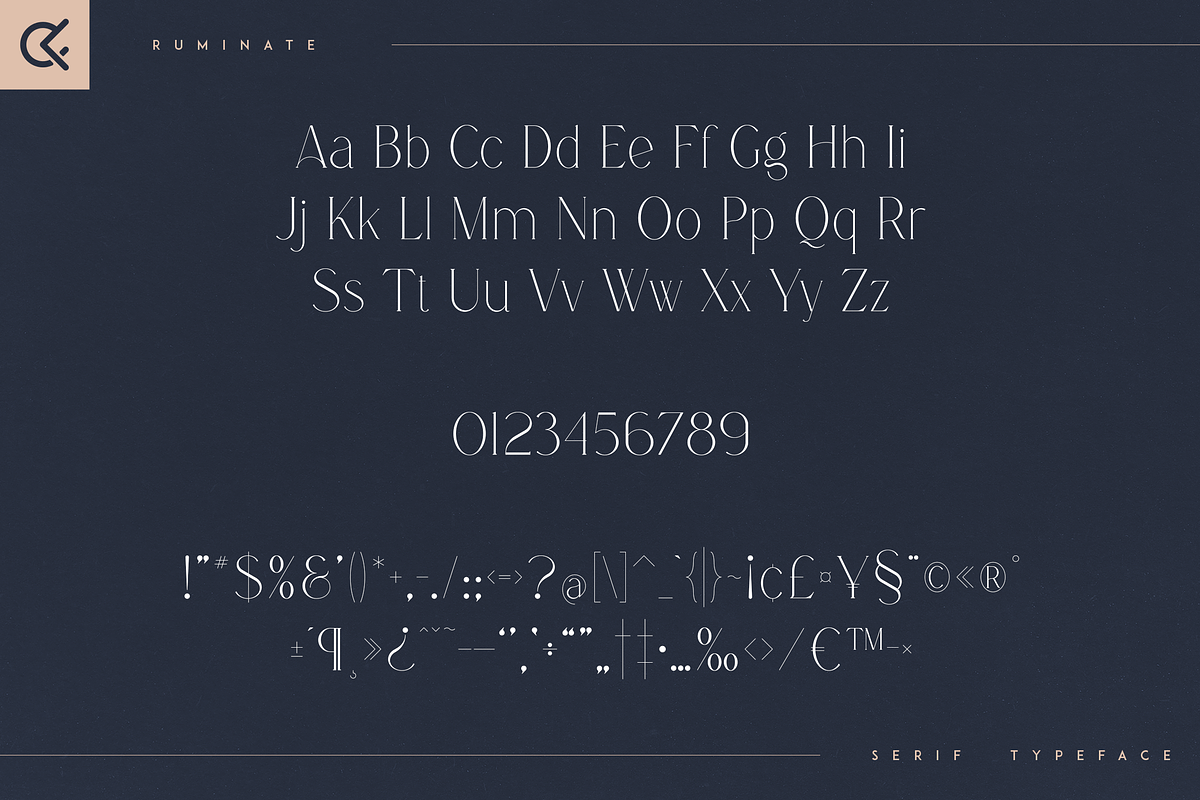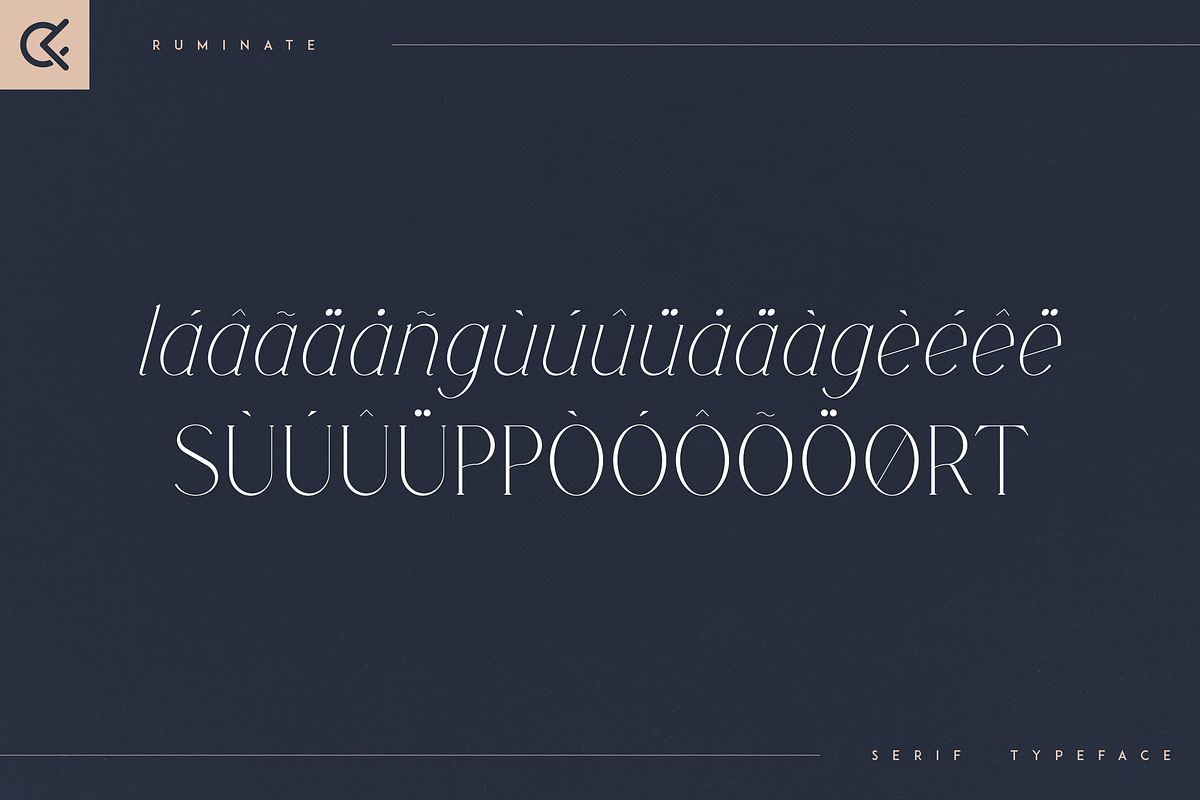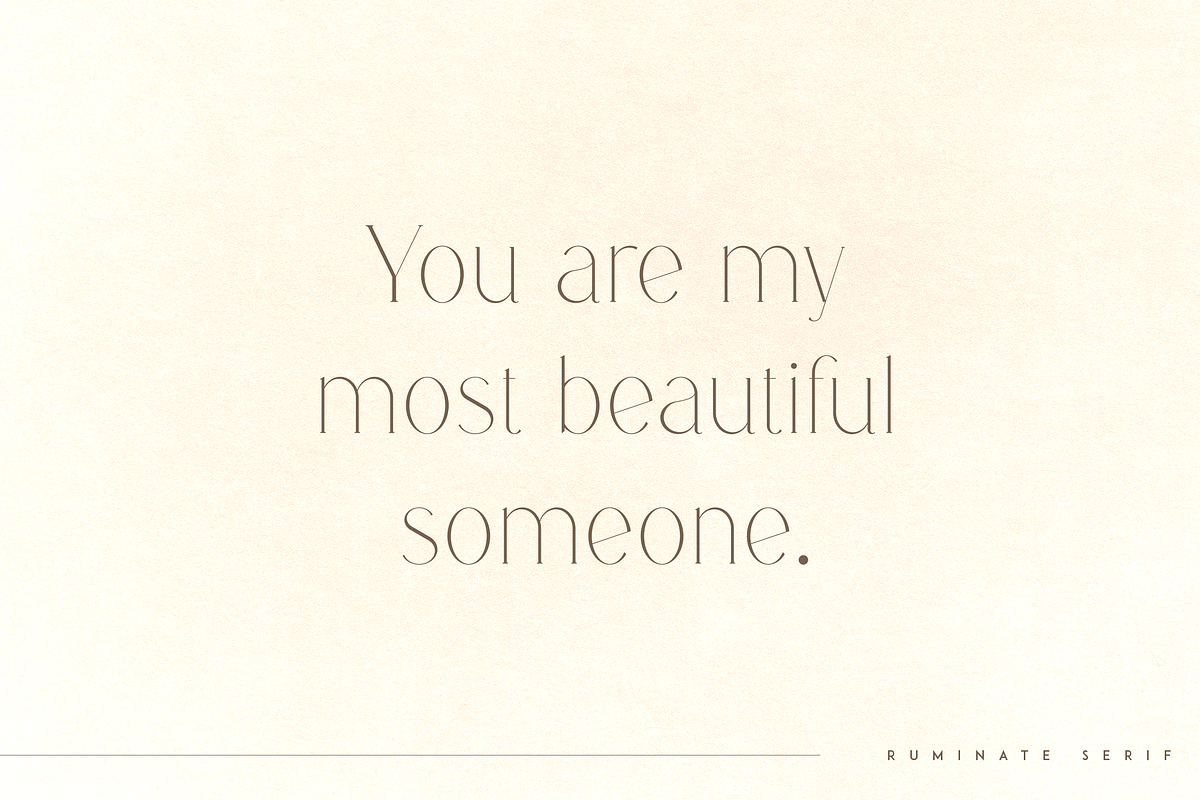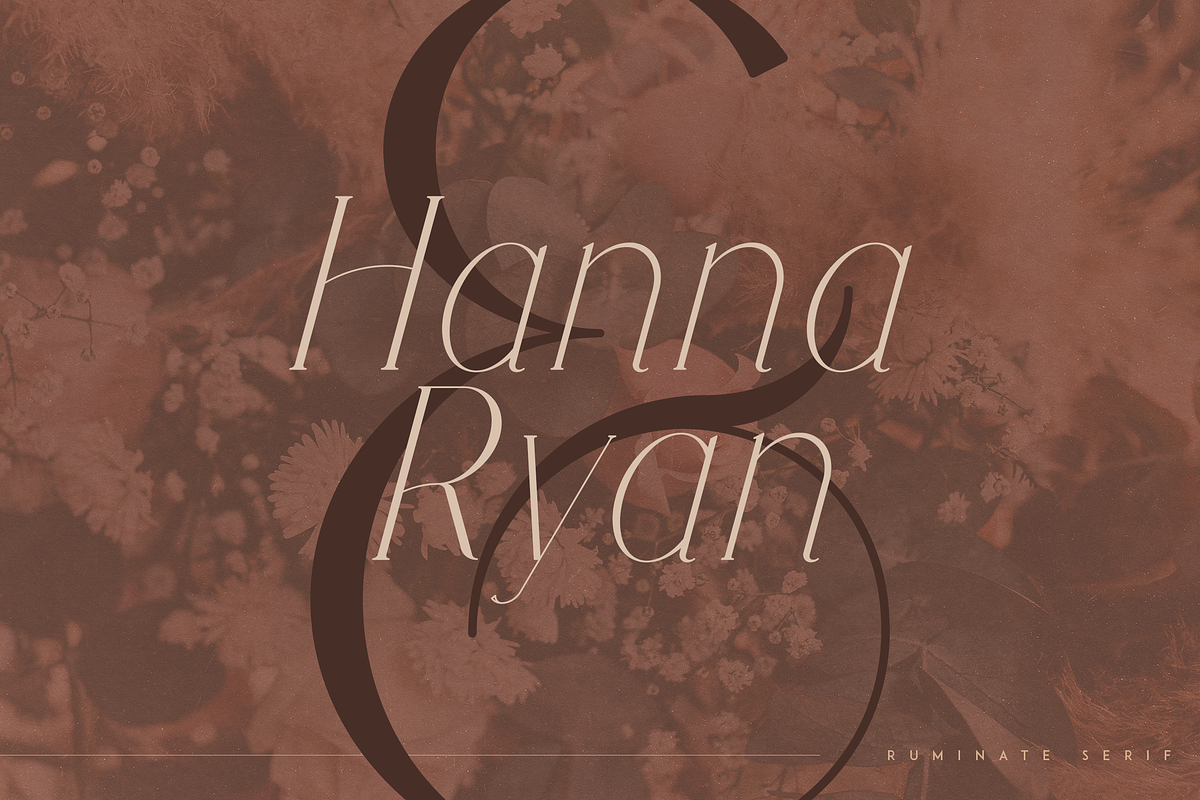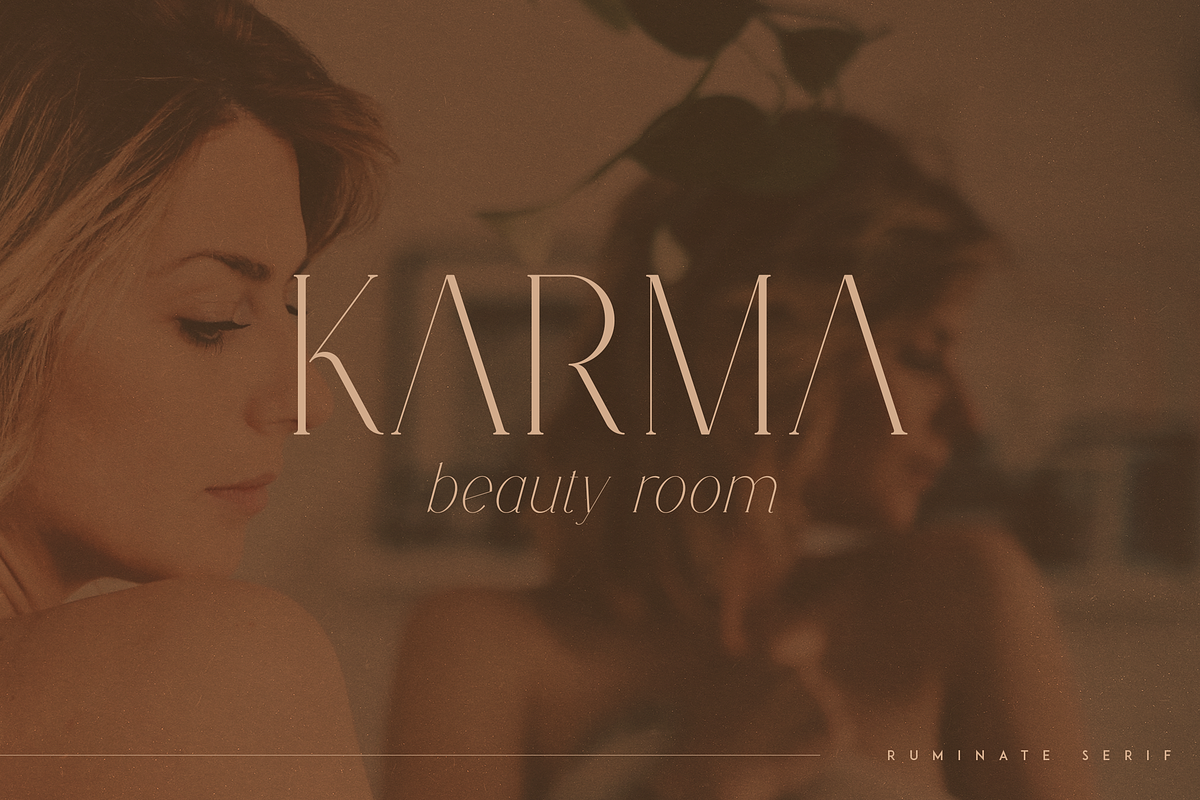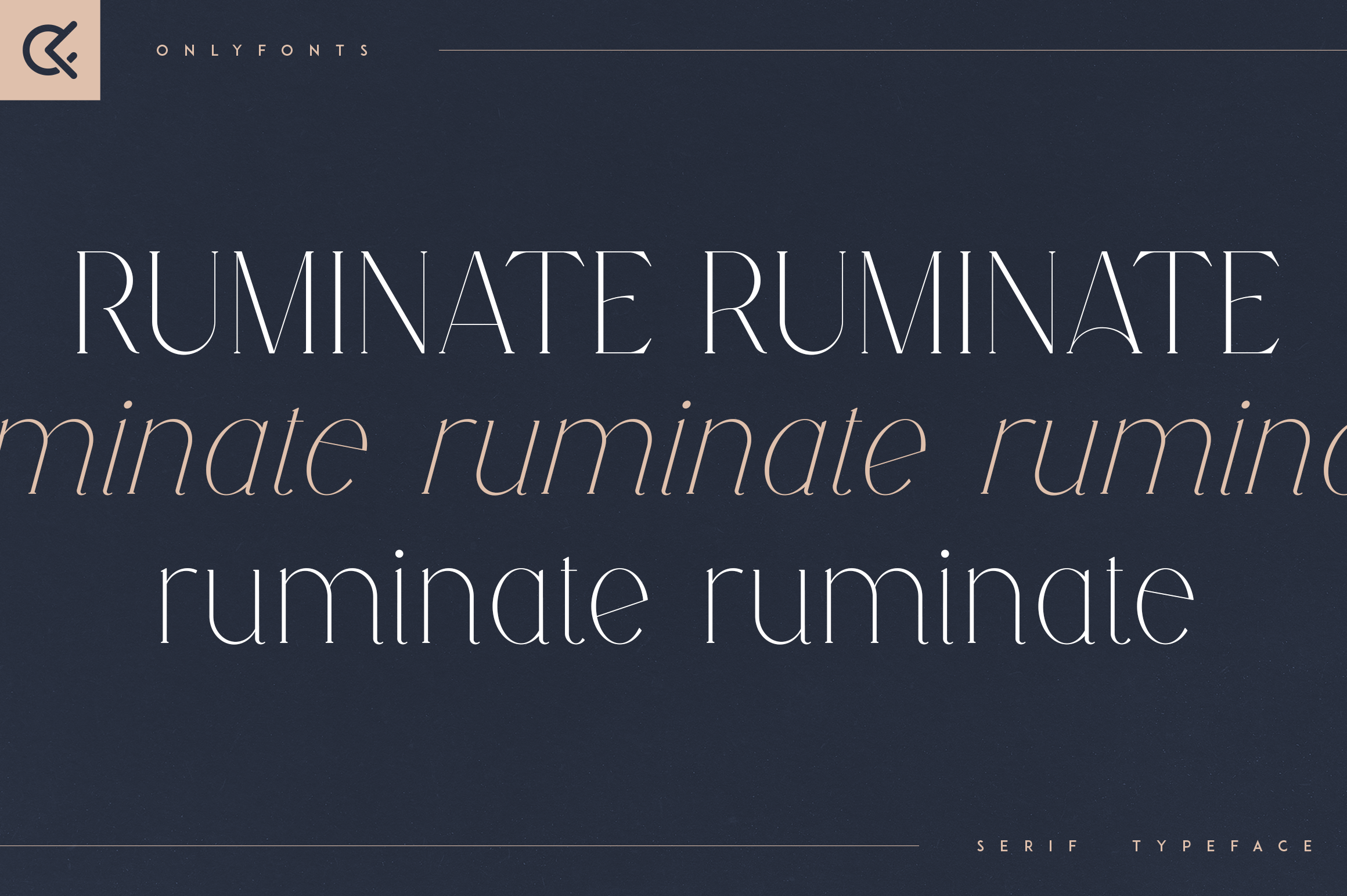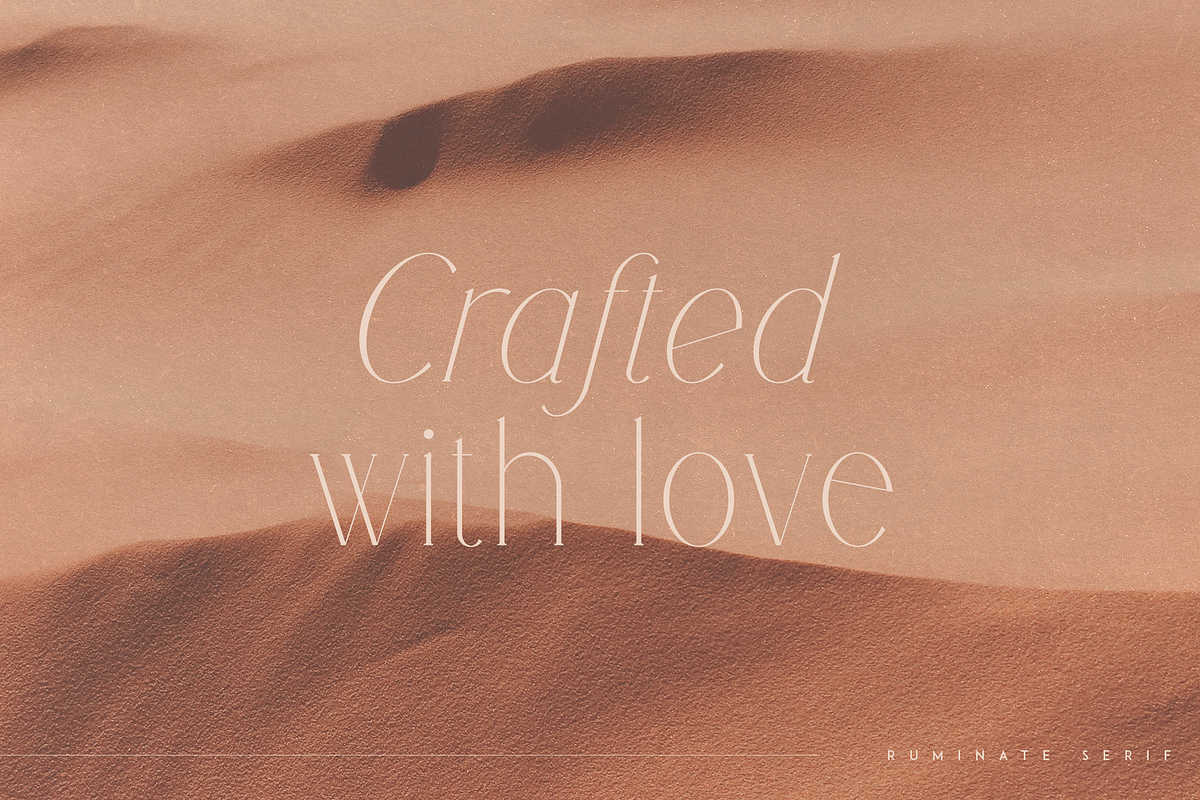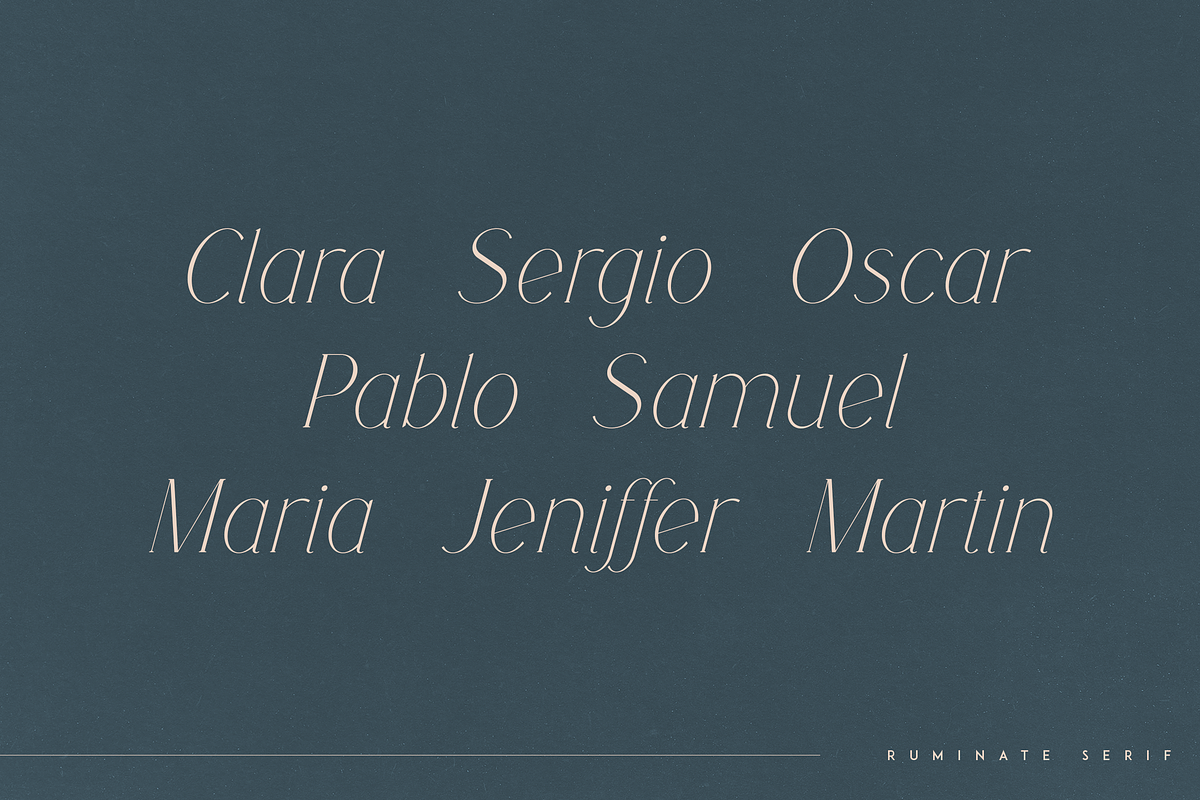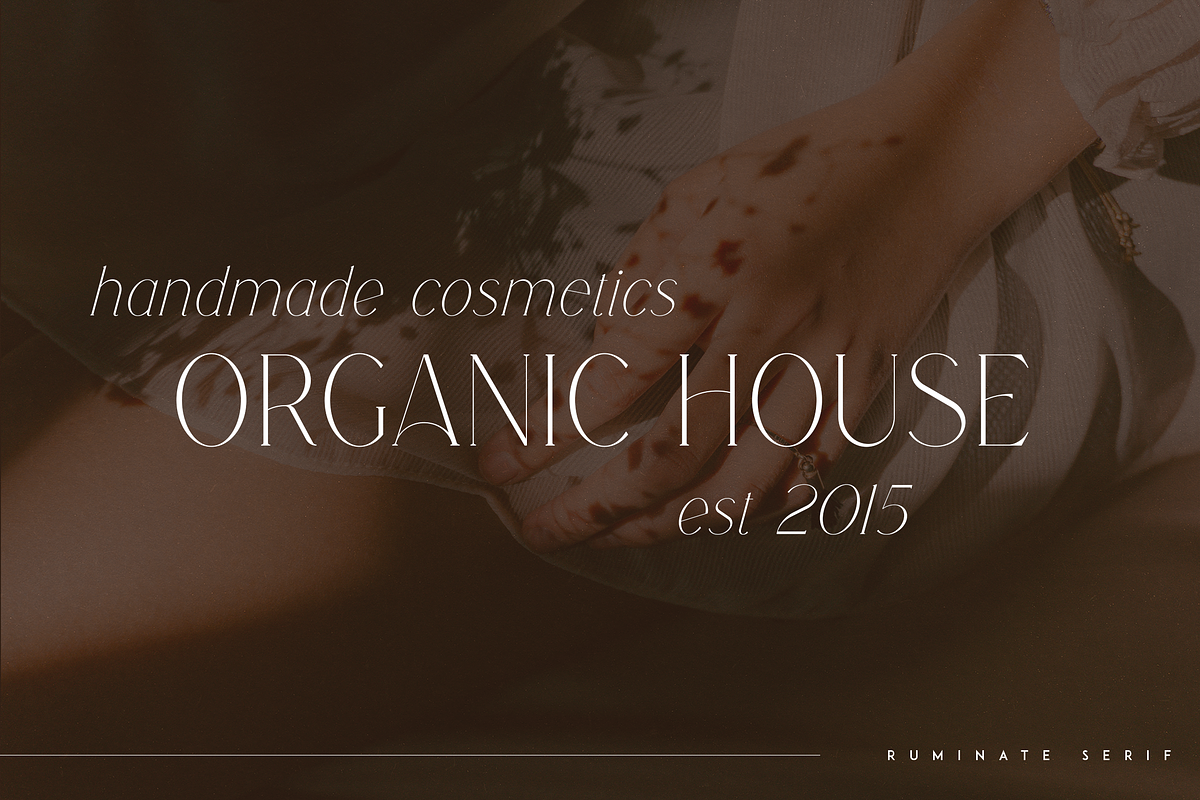
Ruminate - Serif Typeface
Introducing Ruminate - serif typeface - regular and italic fonts
Ruminate is feminine and elegant typeface with multilingual support. It's a very versatile font that works great in large and small sizes.
This font is perfect for branding projects, home-ware designs, product packaging, magazine headers - or simply as a stylish text overlay to any background image.
- Uppercase, lowercase, numeral, punctuation & Symbol
- 3 fonts - regulat, alternate, italic
- alternate glyphs